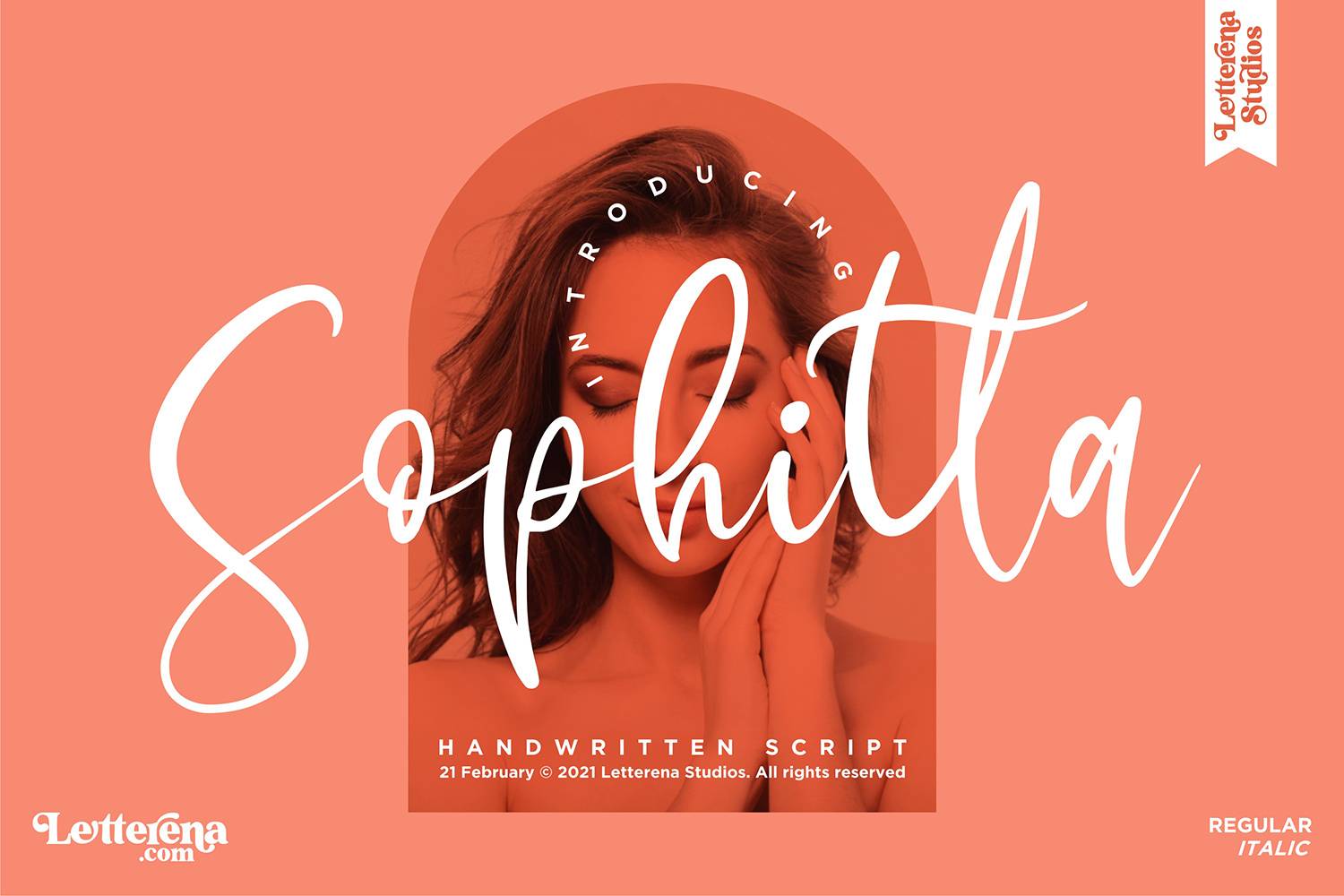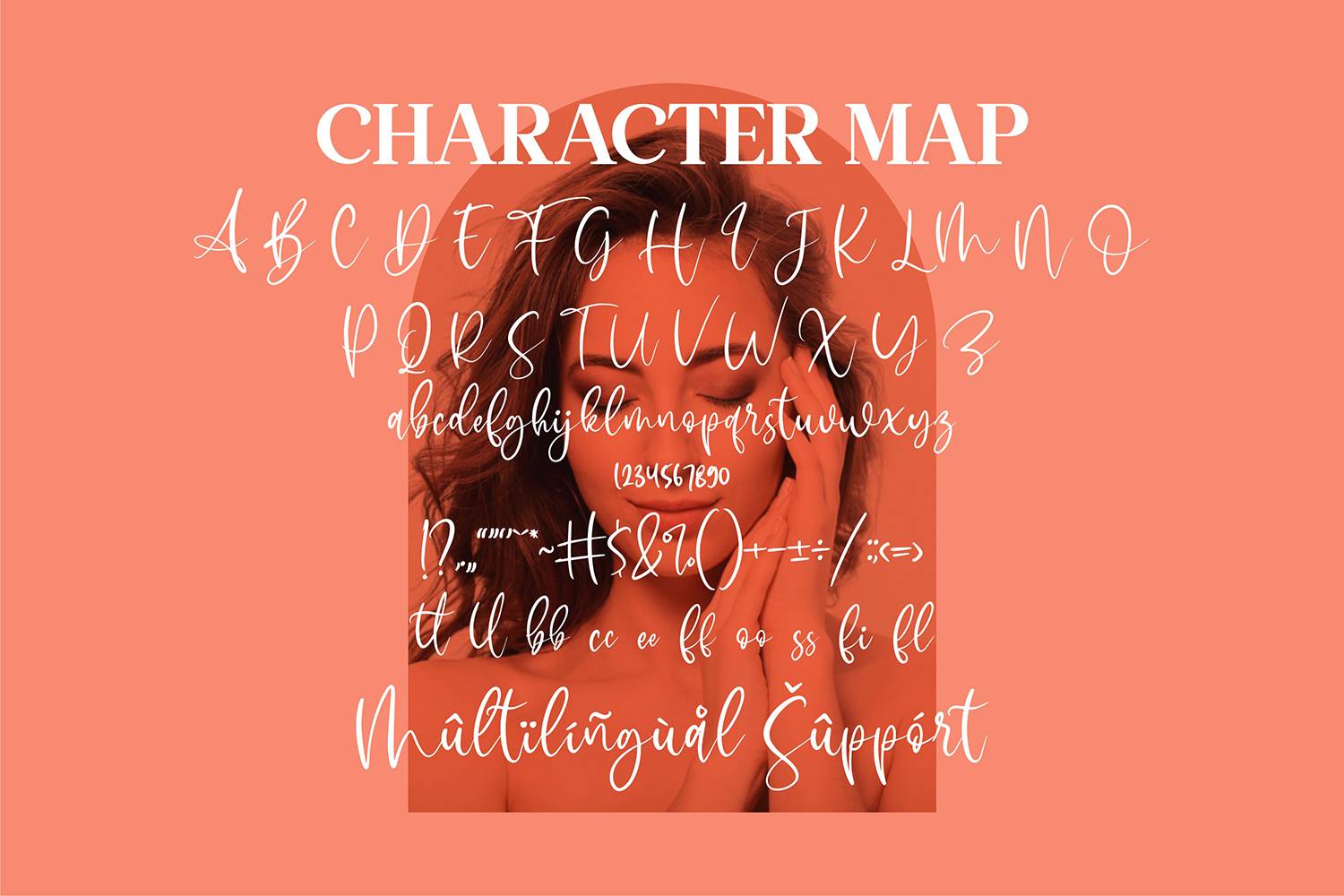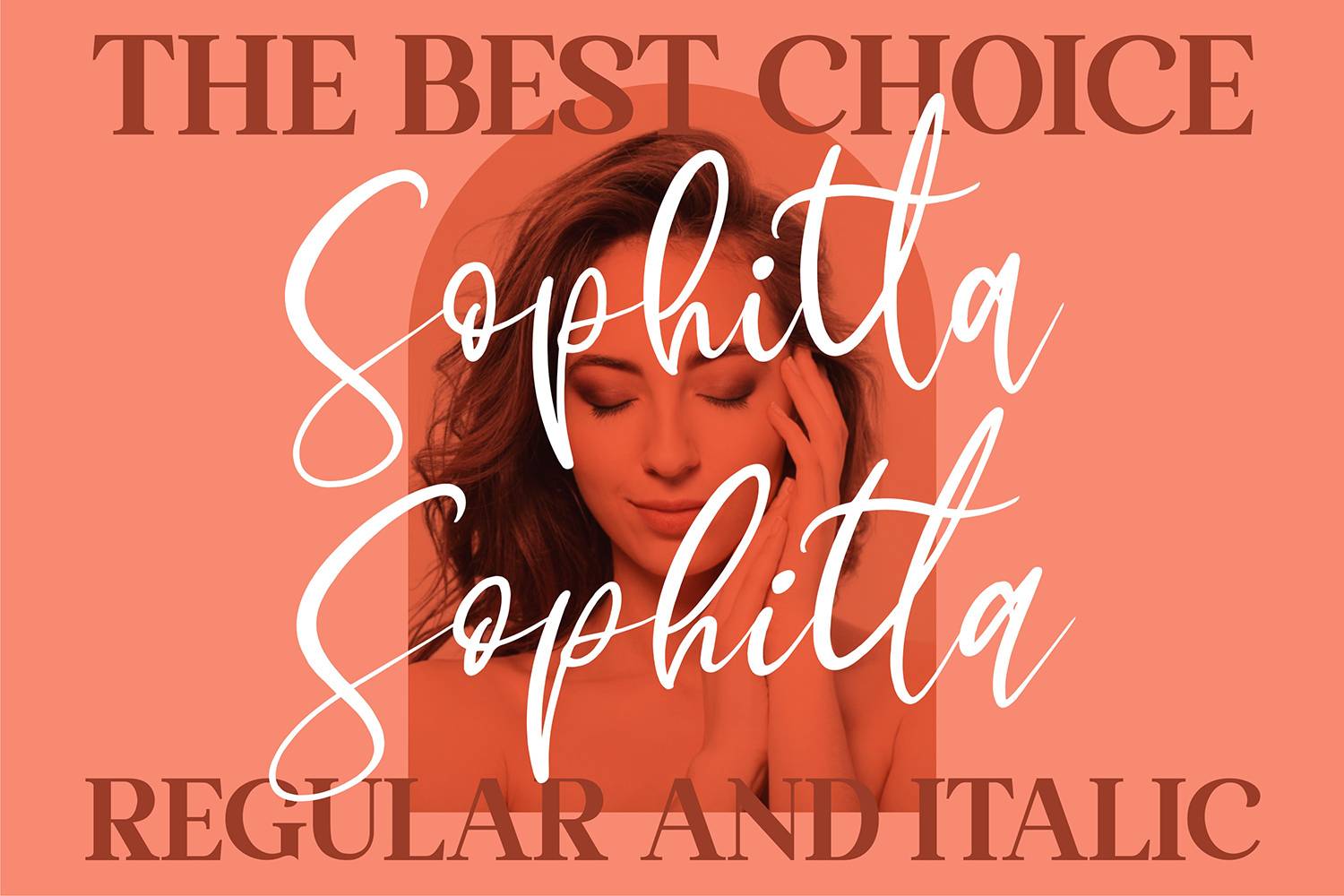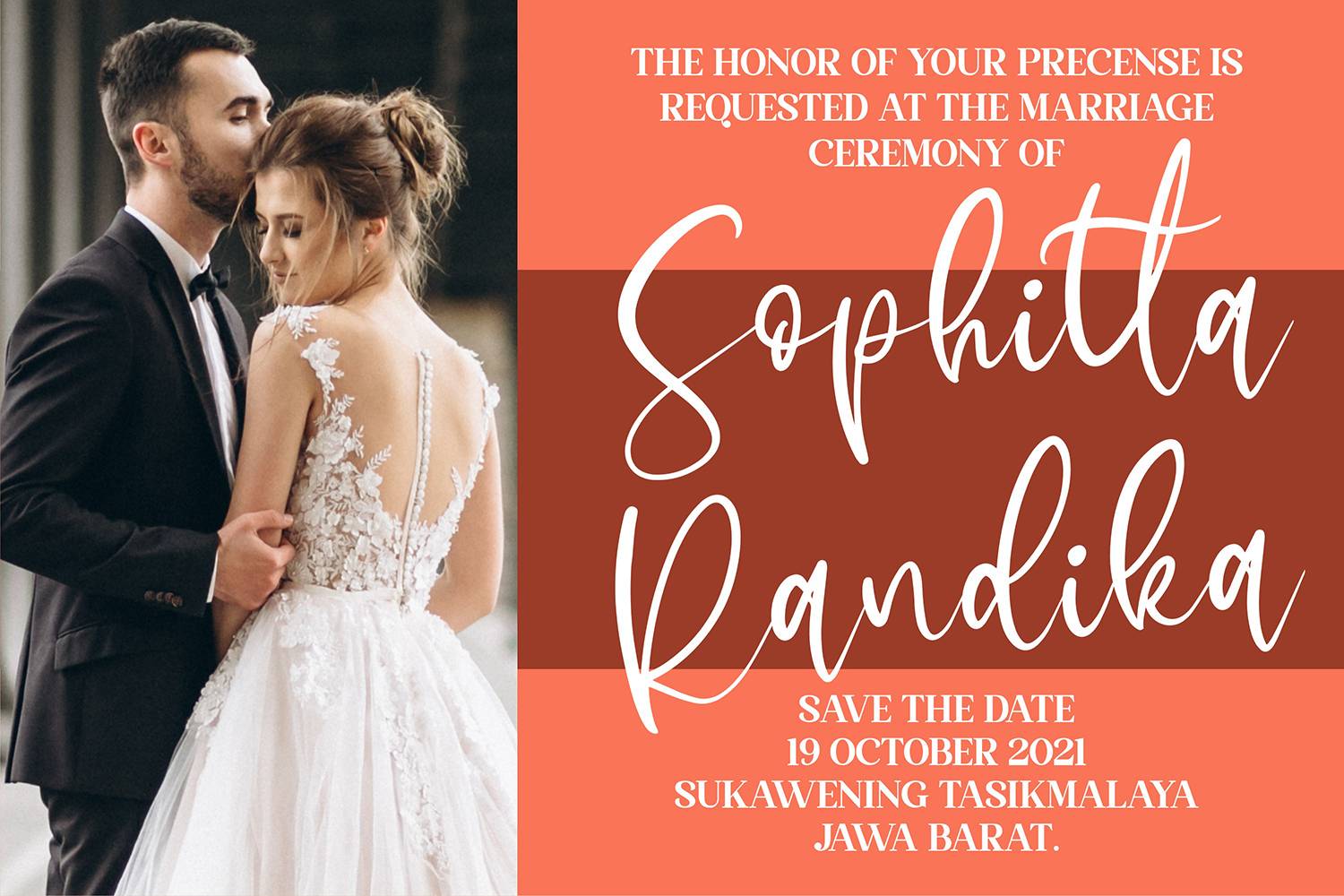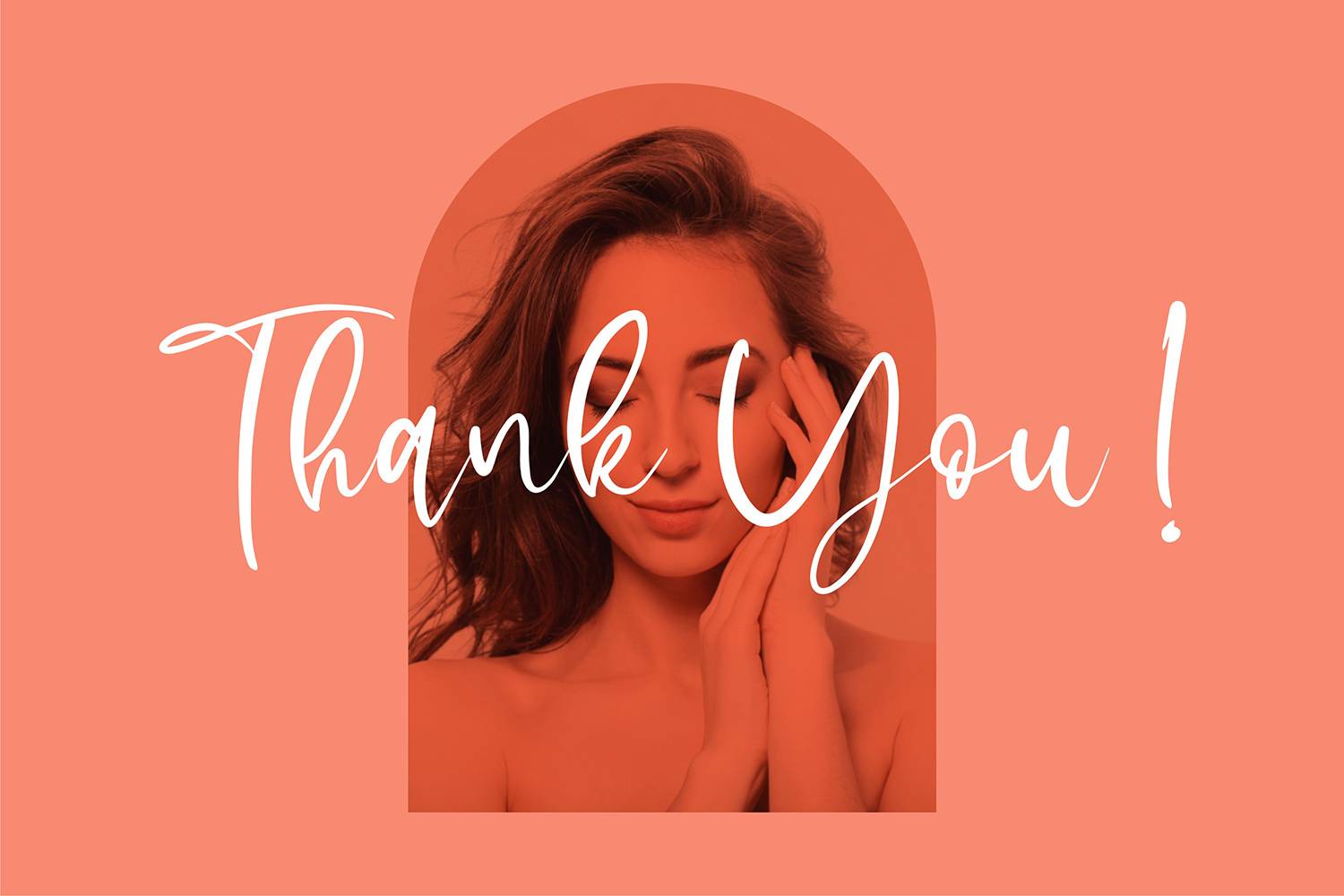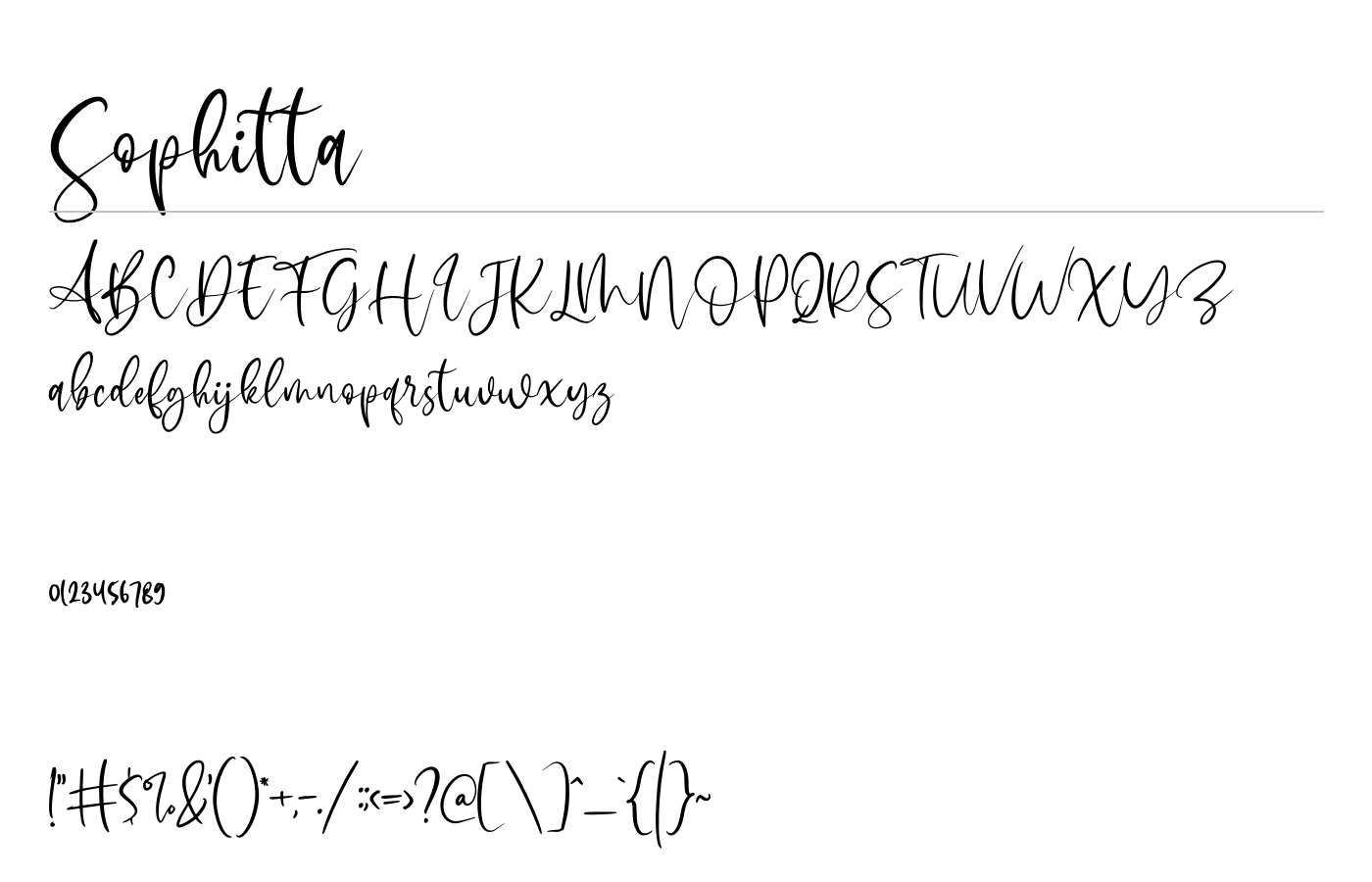
Sophitta is a delicate, handwritten script font with a slender, elegant style that combines playful loops and smooth flowing strokes. Its light weight and airy letterforms make it perfect for adding a personal, feminine touch to wedding invitations, branding, and creative projects. This font shines in uses that need a graceful, approachable feel with a modern, handcrafted charm.
Sophitta Font
About Sophitta Font
| Font family | Sophitta Font |